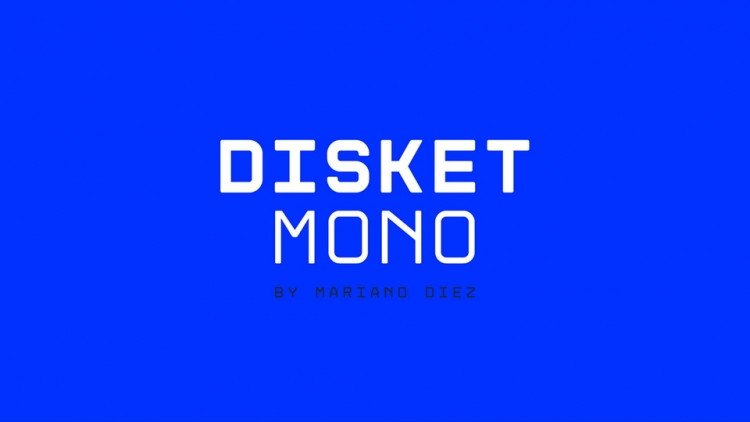
Disket Mono Typeface
Disket Mono Typeface is a monospaced display grid based typeface, inspired by geometry, grids and architecture.
Disket Mono font comes in Regular and Bold weights, contains all caps lettes and extended language support.
Designed by Mariano Diez, cyrillic set by Denis Ignatov.